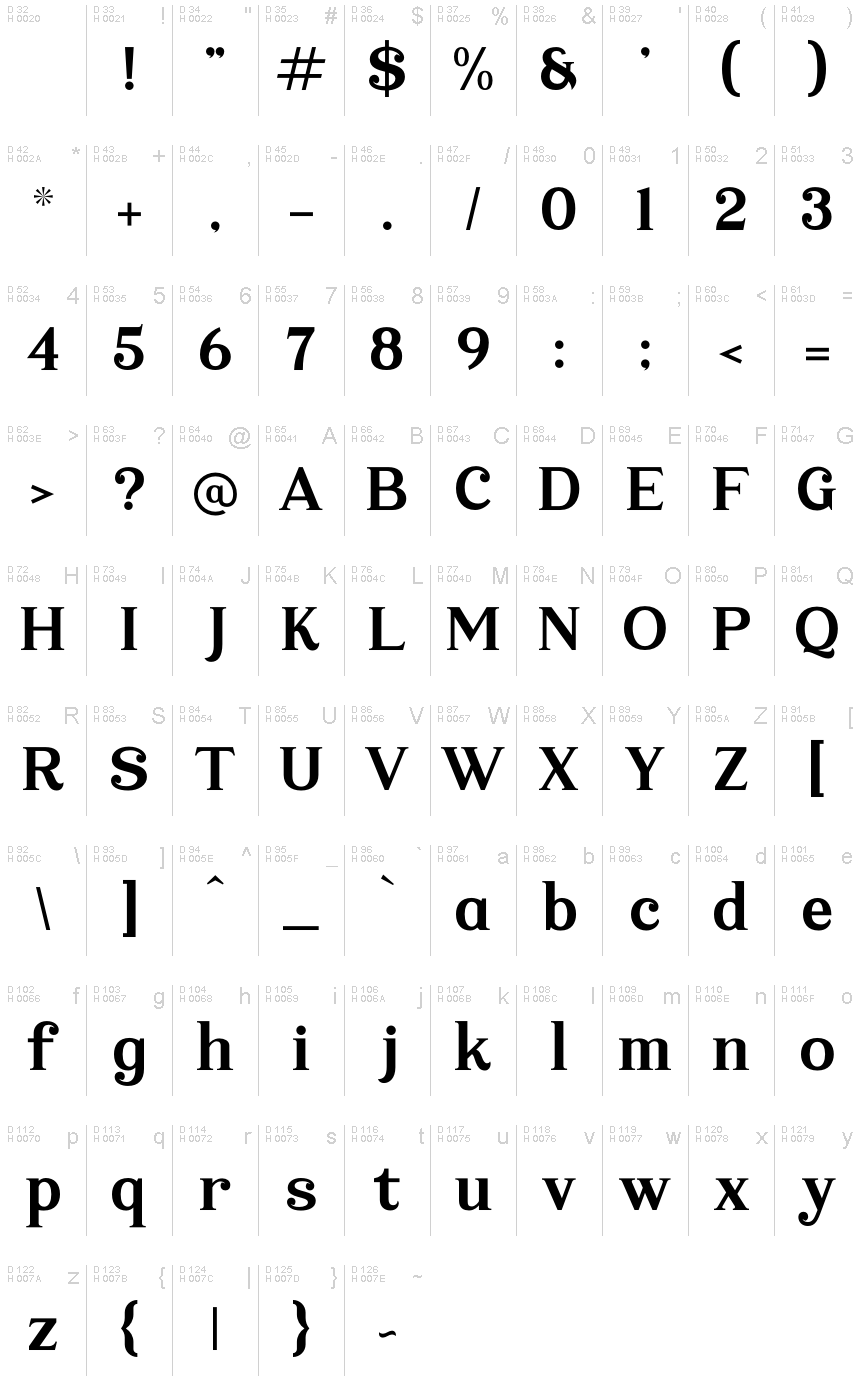
Waildesh
Waildesh, a captivating serif font crafted by Storytype Studio, exudes a timeless elegance with its refined, yet inviting aesthetics. Boasting a harmonious blend of classical influences and modern sensibilities, this font's distinctive character captivates the eye, evoking a sense of sophistication and thoughtful craftsmanship.
Waildesh's distinctive serifs, subtle stroke variations, and balanced letterforms create a visually engaging and immersive reading experience. Its versatility shines through, making it a versatile choice for a wide range of design applications, from editorial layouts and branding initiatives to sophisticated packaging and digital interfaces.